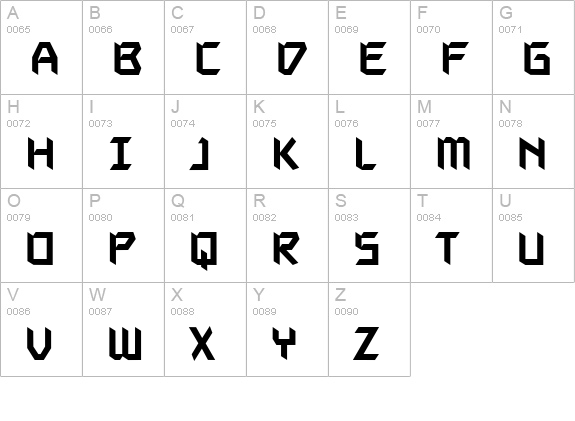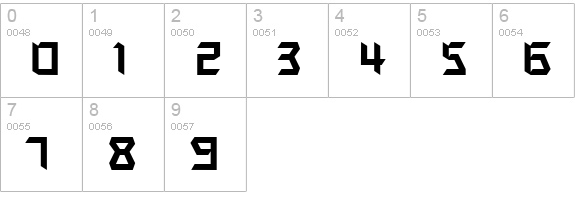
Autodestruct BB Font Details
Autodestruct BB font is a striking and dynamic typeface that exudes an edgy and futuristic vibe. With its bold and angular design, Autodestruct BB is perfect for creating eye-catching headlines and designs that demand attention. This font is ideal for projects that require a modern and innovative touch. Best of all, Autodestruct BB is available for free download at FontsMarket.com. Whether you're a designer looking to add a unique element to your work or a creative individual seeking a powerful font for personal projects, Autodestruct BB is a must-have in your collection. Download it today and unleash the power of this cutting-edge font in your designs.